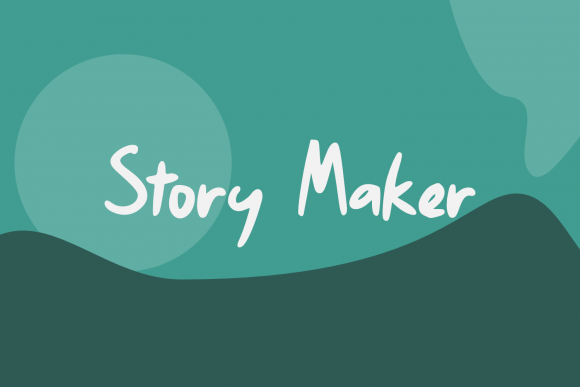
Children Book Kids: A Charming Handwritten Font for Creative Projects
As I opened a new brand board for a local bakery, I knew I needed something special to capture the whimsical and inviting atmosphere. Enter Children Book Kids, a cute handwritten font that brings a touch of childlike playfulness to any design. This Script Handwritten font is perfect for brightening up kids and school projects, but it also has a versatile charm that can be used in various creative contexts.
Children Book Kids in Logo Design: A Playful Touch
When I first tested Children Book Kids on a logo concept for the bakery, I was immediately struck by its playful and welcoming vibe. The font's bouncy, hand-drawn style perfectly captured the cozy, family-friendly atmosphere. It worked beautifully as a display font, standing out in the logo while still feeling approachable and fun. For a more balanced look, I paired it with a clean sans serif font, which complemented the handwritten style without overpowering it.
Children Book Kids for Packaging Design: Adding Charm to Labels
Next, I moved on to the packaging mockup. The goal was to create a label that would make the bakery’s products stand out on the shelf. Children Book Kids added a delightful, handmade feel to the labels, making them visually appealing and memorable. The font’s unique, slightly irregular strokes gave the impression of a personal, handcrafted touch, which is exactly what the bakery wanted to convey. To ensure readability, I used the font for short phrases and product names, keeping the text size large enough to be easily legible.
Children Book Kids in Web Design: Creating Engaging Visuals
For the bakery’s website, I experimented with Children Book Kids in the hero section. The font’s playful nature made the homepage feel welcoming and engaging. I used it for the main heading, “Welcome to Our Cozy Bakery,” and it instantly set the right tone. However, I found that for longer sections of text, such as the about page or menu, a more traditional serif or sans serif font was better suited. This way, the handwritten style of Children Book Kids could shine in key areas without sacrificing overall readability.
Children Book Kids for Social Media Graphics: Captivating Your Audience
Creating social media graphics is another area where Children Book Kids truly shines. Whether it’s an Instagram post announcing a new pastry or a Facebook event for a baking class, the font adds a charming, eye-catching element. I used it for short, impactful captions and headings, which stood out and grabbed attention. The font’s playful, handwritten style made the graphics feel more personal and relatable, helping to build a stronger connection with the audience.
Children Book Kids in Business Cards: A Personal Touch
Finally, I designed a business card for the bakery. Using Children Book Kids for the bakery’s name and tagline, I created a card that felt both professional and friendly. The font’s handwritten style added a personal touch, making the card stand out and feel more memorable. For the contact information, I opted for a clean, easy-to-read sans serif font, ensuring that all the details were clear and legible.
In conclusion, Children Book Kids is a versatile and charming Script Handwritten font that can add a unique, playful touch to a wide range of design projects. Whether you’re working on a logo, packaging, web design, or social media graphics, this font can help you create designs that are both engaging and memorable. Just remember to test it in different contexts and pair it with complementary fonts to achieve the best results. And, as always, make sure to check the commercial licensing before using it in your client work.